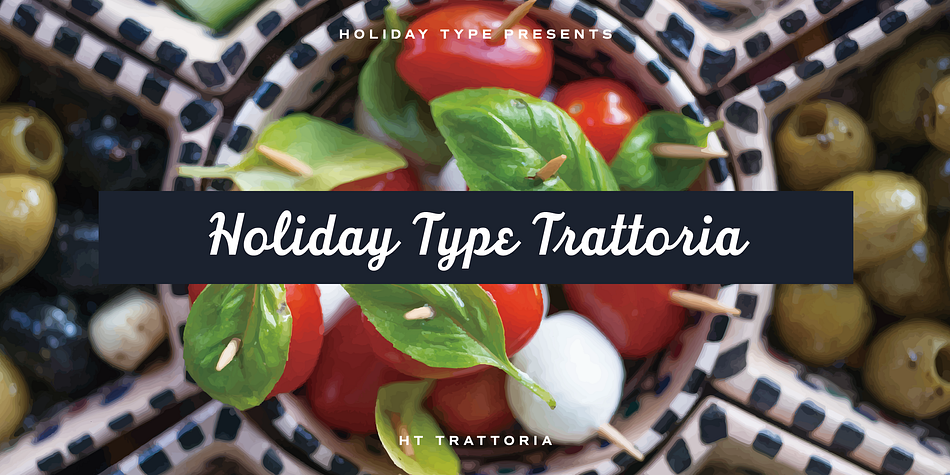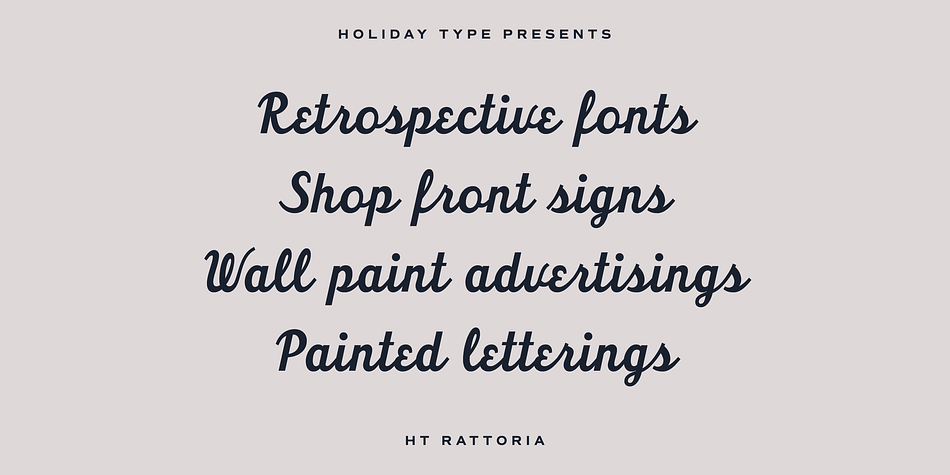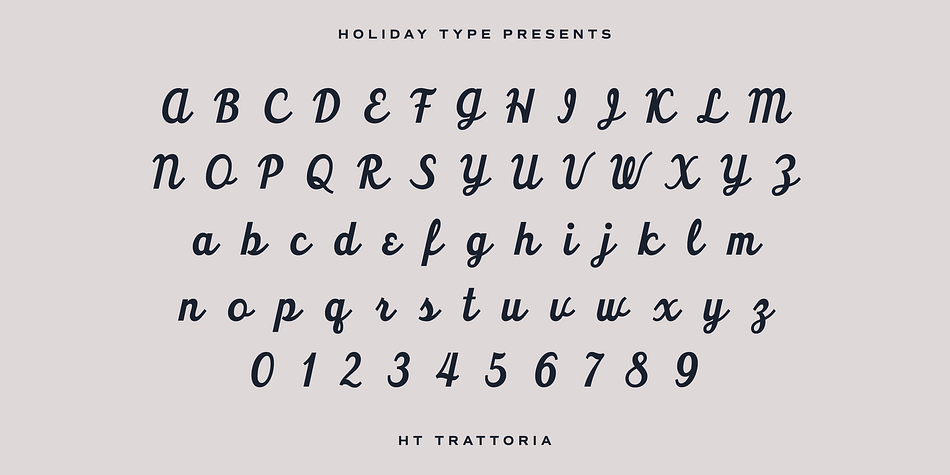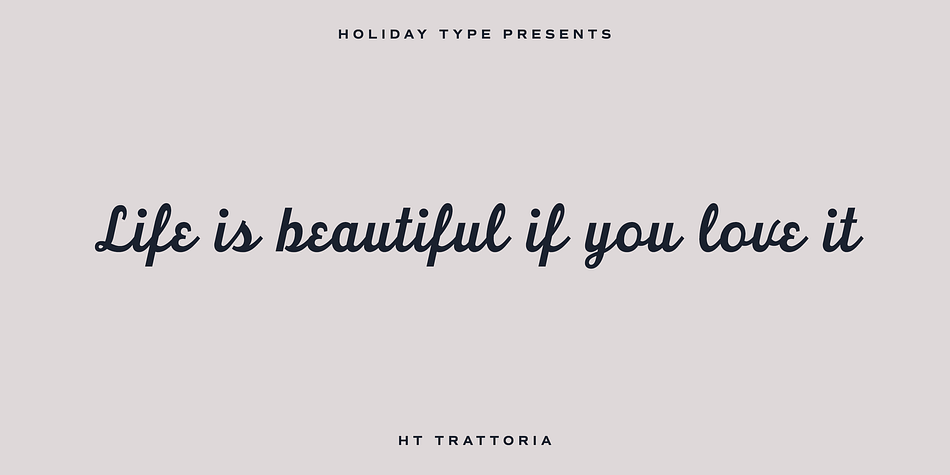
HT Trattoria is a brush script font published by Dharma Type.
HT Trattoria is a lovely brush script with authentic and organic feel.It works best for packaging, magazines, marketing, labels, film and clothing.
Holiday Type(HT) Project offers retro hand drawing scripts. Inspired by retro script on shopfront lettering, wall paint advertisements in Italy around 1950s.